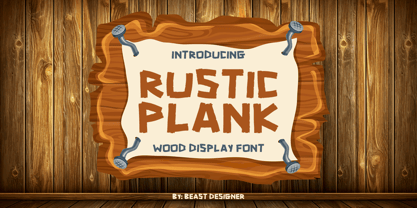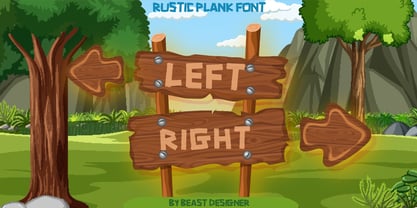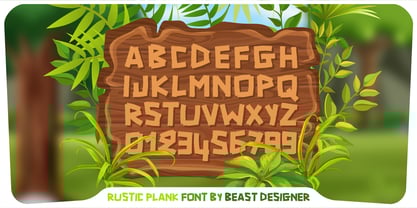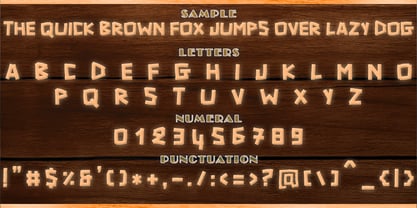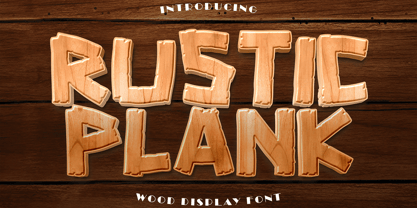
Rustic Plank
by Beast Designer
The Rustic Plank Font Family was designed by Mohammed Lamjidi and published by Beast Designer. Rustic Plank contains 1 styles.
Rustic Plank brings the charm of weathered wood to your designs with its bold, textured lettering.
Perfect for logos, signage, packaging, and rustic branding, this font adds a natural, handcrafted feel to any project.
Let your typography stand strong with the warmth of real wood! 🪵✨
Designers: Mohammed Lamjidi
Publisher: Beast Designer